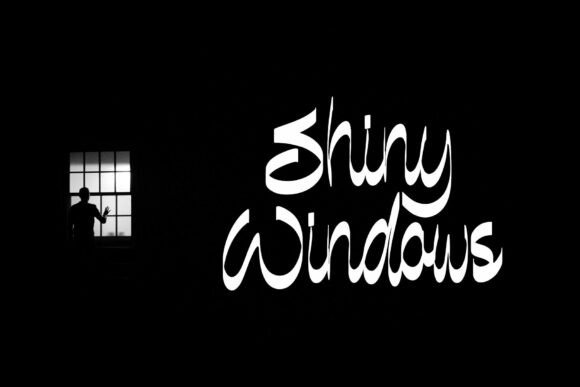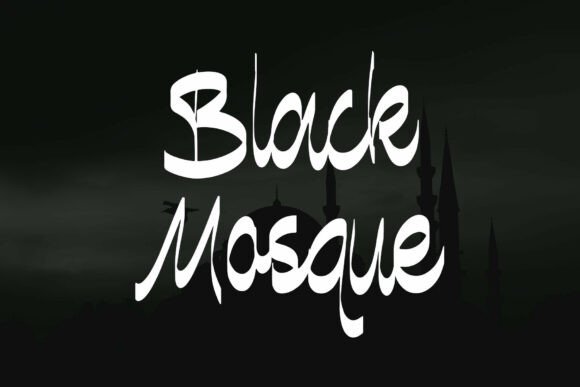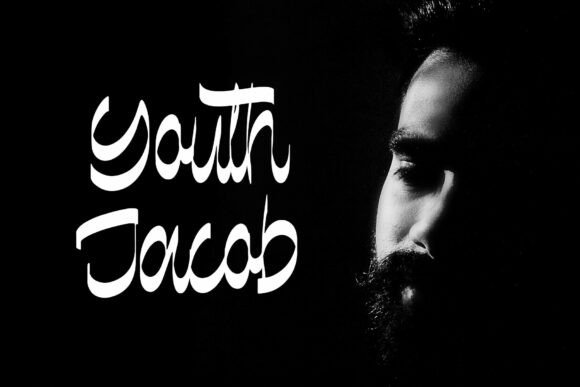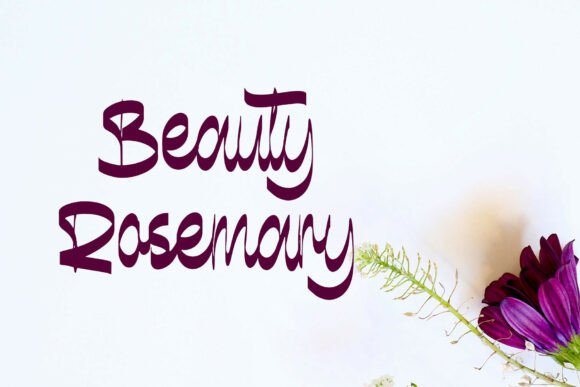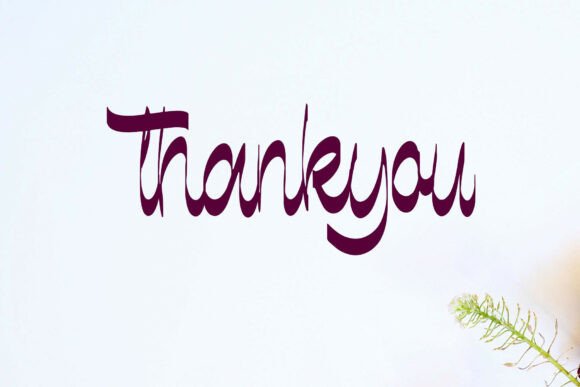
Aparty Gottery Font: Elevate Your Designs with a Bold Retro Script
Are you on the hunt for a font that can add a touch of modern sophistication to your designs? Look no further than the Aparty Gottery Font, a bold retro script font style that is sure to make your projects stand out. With its rounded touch and complete character set, this font is perfect for designers and crafters looking to add a unique flair to their work.
What is Aparty Gottery Font?
Aparty Gottery Font is a bold retro script font style that features a rounded touch, giving it a soft and approachable feel. The font is equipped with a complete character set, including uppercase letters, lowercase letters, numbers, punctuation marks, and multi-lingual support. This makes it an incredibly versatile font that can be used in a wide range of projects, from logotypes and packaging design to stickers, Cricut projects, and more.
Key Features of Aparty Gottery Font
- Complete Character Set: The font includes a complete character set, ensuring that you have access to all the characters you need to create stunning designs.
- Multi-Lingual Support: With multi-lingual support, you can use the font to create designs in a variety of languages.
- Rounded Touch: The font’s rounded touch gives it a soft and approachable feel, making it perfect for designs that require a touch of warmth.
- Bold Retro Style: The font’s bold retro style is sure to make your designs stand out, adding a touch of sophistication and elegance.
Use Cases for Aparty Gottery Font
Aparty Gottery Font is an incredibly versatile font that can be used in a wide range of projects, including:
- Logotype: Create stunning logotypes that showcase your brand’s personality and style.
- Stickers: Add a touch of modern sophistication to your stickers and make them stand out.
- Packaging Design: Elevate your packaging design with a font that is both bold and elegant.
- Cricut Projects: Use the font to create stunning Cricut projects, from DIY signs to custom vinyl decals.
- Headlines: Add a touch of sophistication to your headlines and make them stand out.
- Brand Identity: Use the font to create a consistent brand identity that showcases your brand’s personality and style.
- Posters: Create stunning posters that grab attention and leave a lasting impression.
- Magazines and Books: Use the font to add a touch of elegance to your magazine and book designs.
- YouTube and Instagram: Add a touch of modern sophistication to your YouTube and Instagram content.
- Websites: Use the font to create stunning website designs that showcase your brand’s personality and style.
- Canva and Corjl: Use the font to create stunning designs in Canva and Corjl, from social media graphics to presentations.
Why Choose Aparty Gottery Font?
With so many fonts to choose from, why should you choose Aparty Gottery Font? Here are just a few reasons:
- Unique Style: The font’s bold retro style with a rounded touch is sure to make your designs stand out.
- Versatility: The font’s complete character set and multi-lingual support make it an incredibly versatile font that can be used in a wide range of projects.
- Modern Touch: The font adds a touch of modern sophistication to any design, making it perfect for designers and crafters looking to stay ahead of the curve.
If you’re looking for a font that can add a touch of modern sophistication to your designs, look no further than Aparty Gottery Font. With its bold retro style, rounded touch, and complete character set, this font is perfect for designers and crafters looking to create stunning designs that stand out. Whether you’re working on a logotype, packaging design, stickers, or any other project, Aparty Gottery Font is sure to be a great choice.